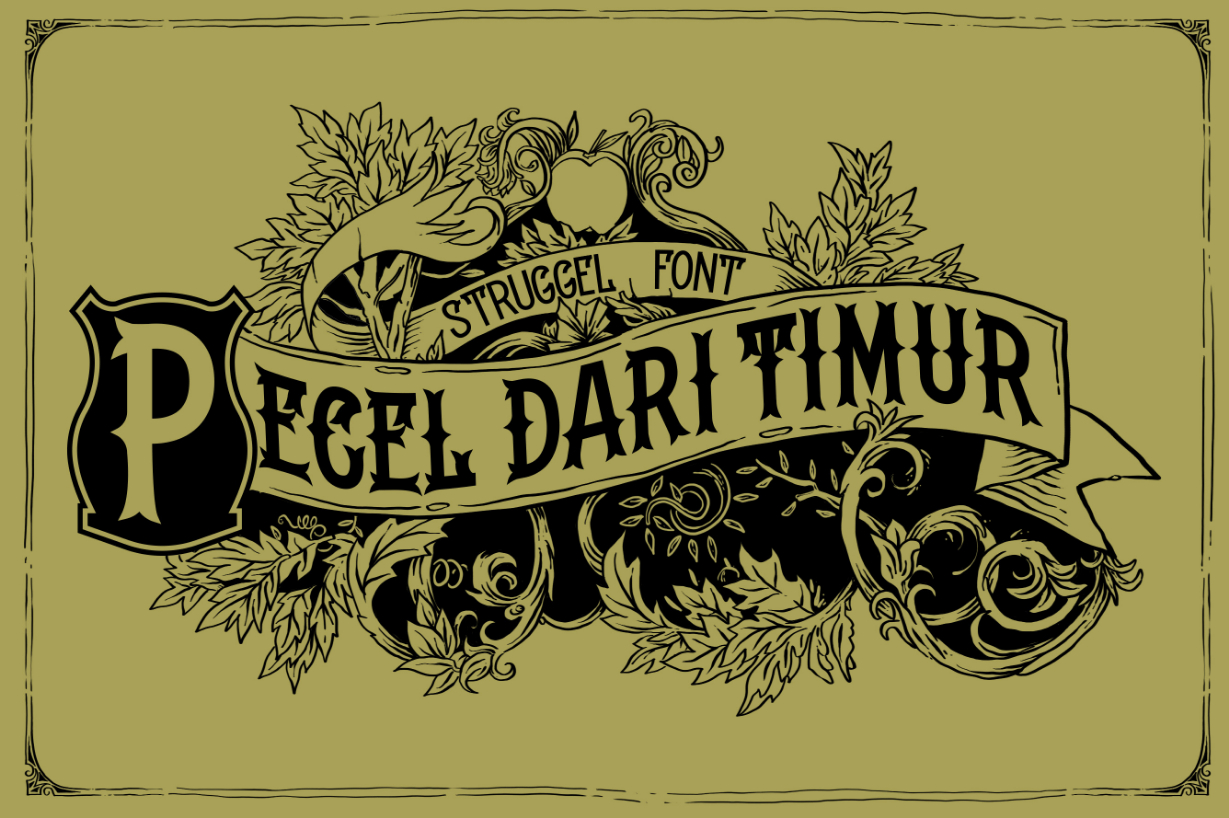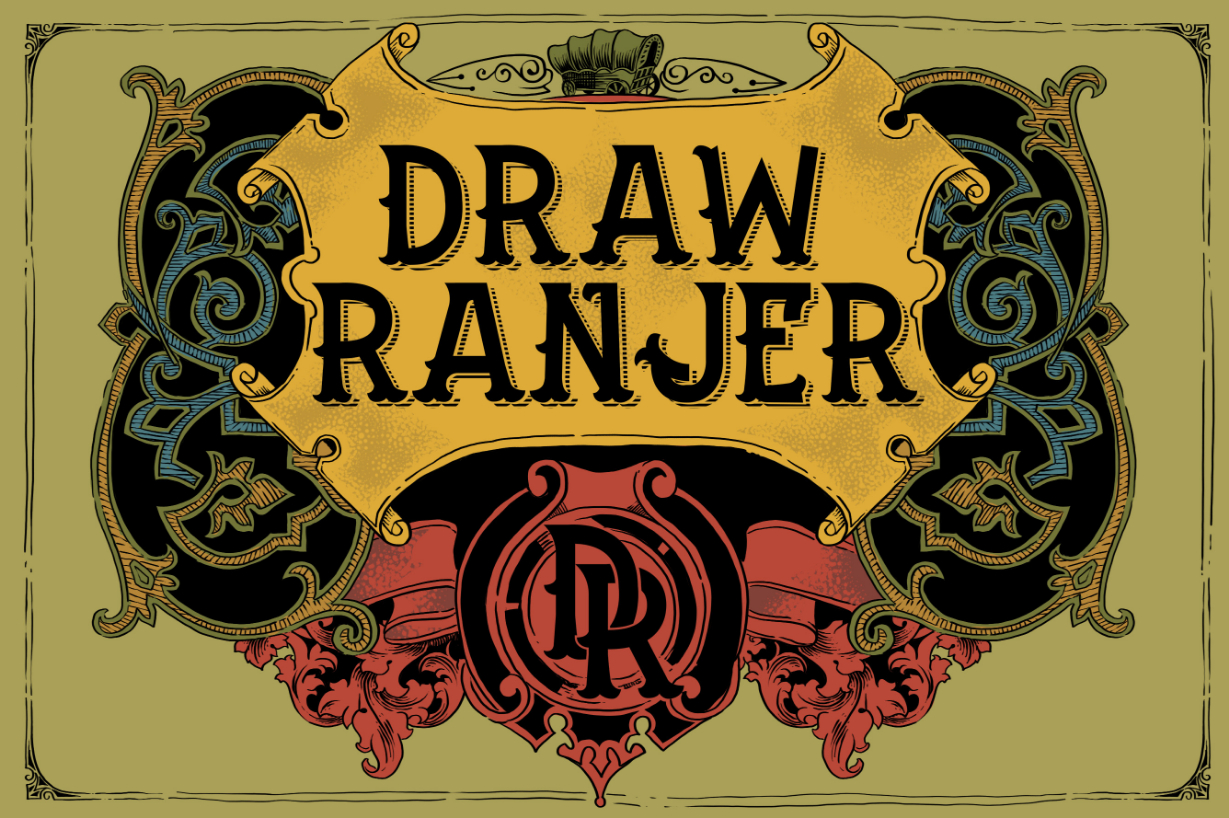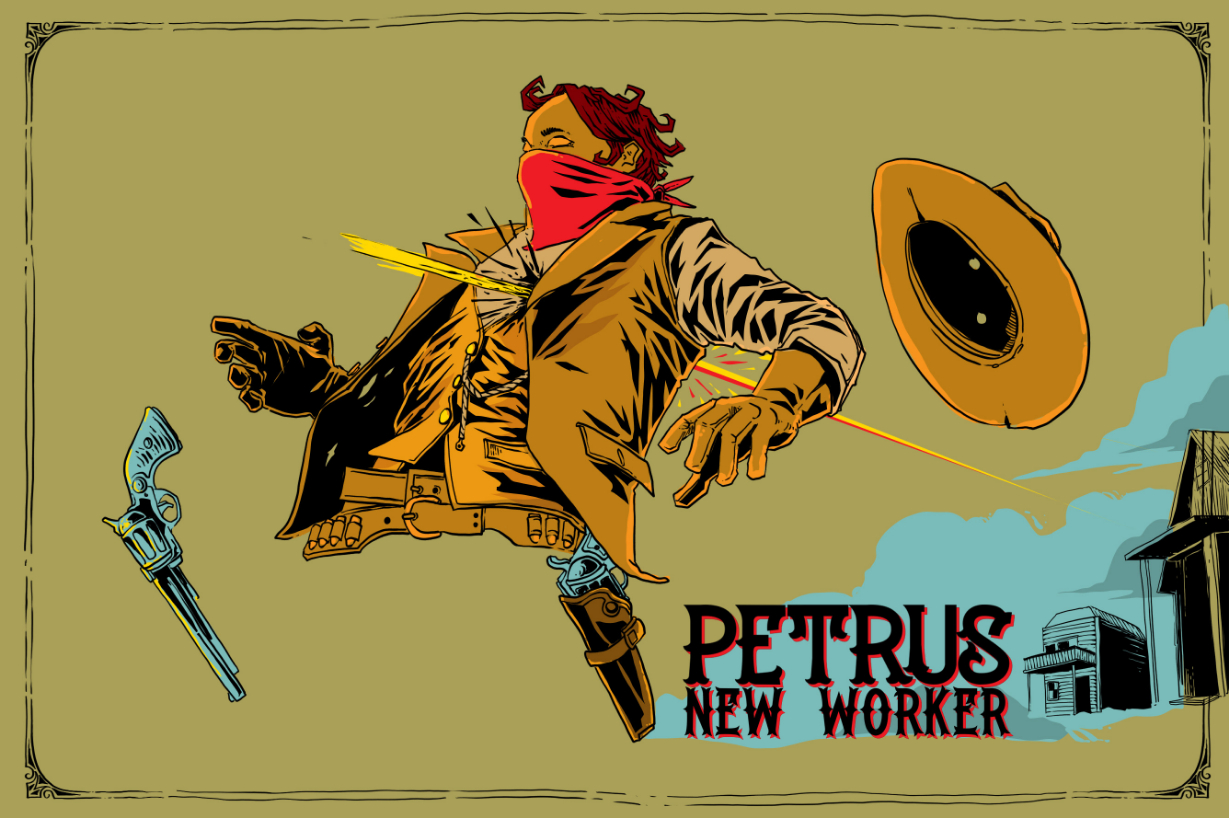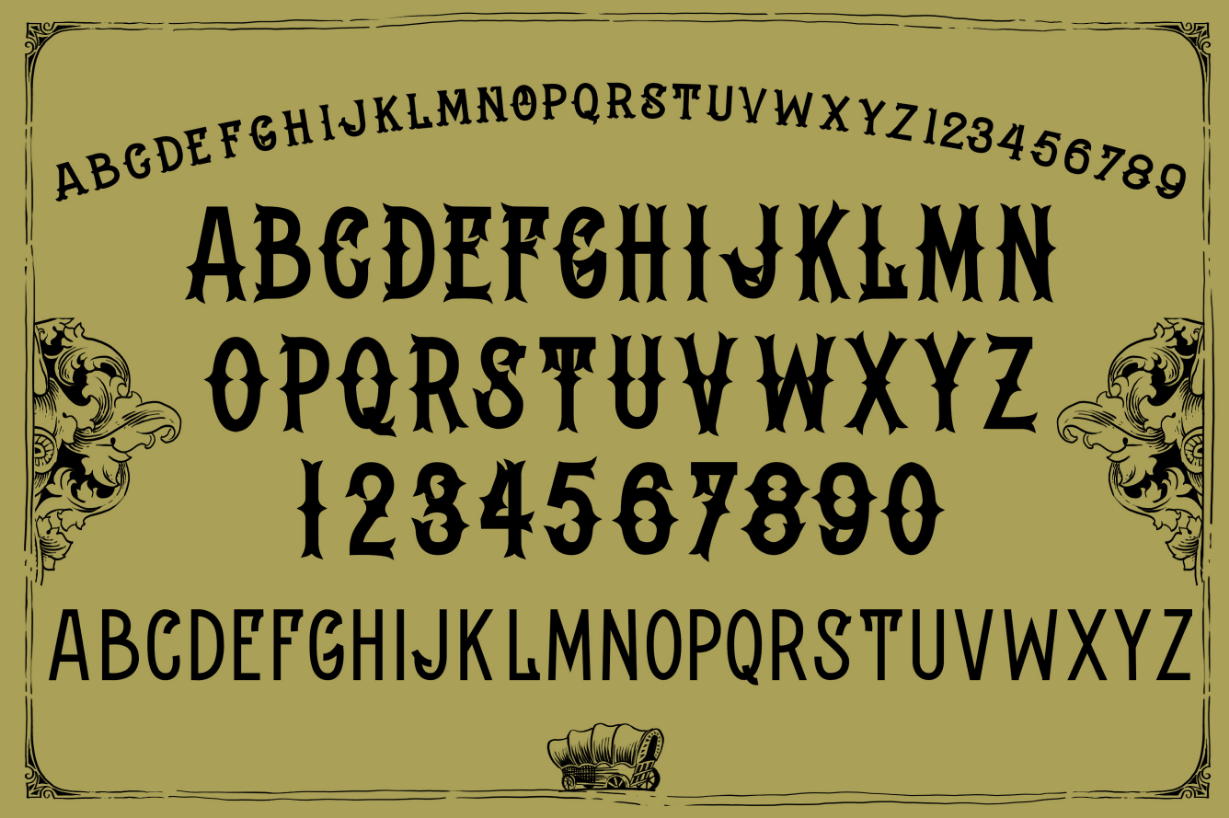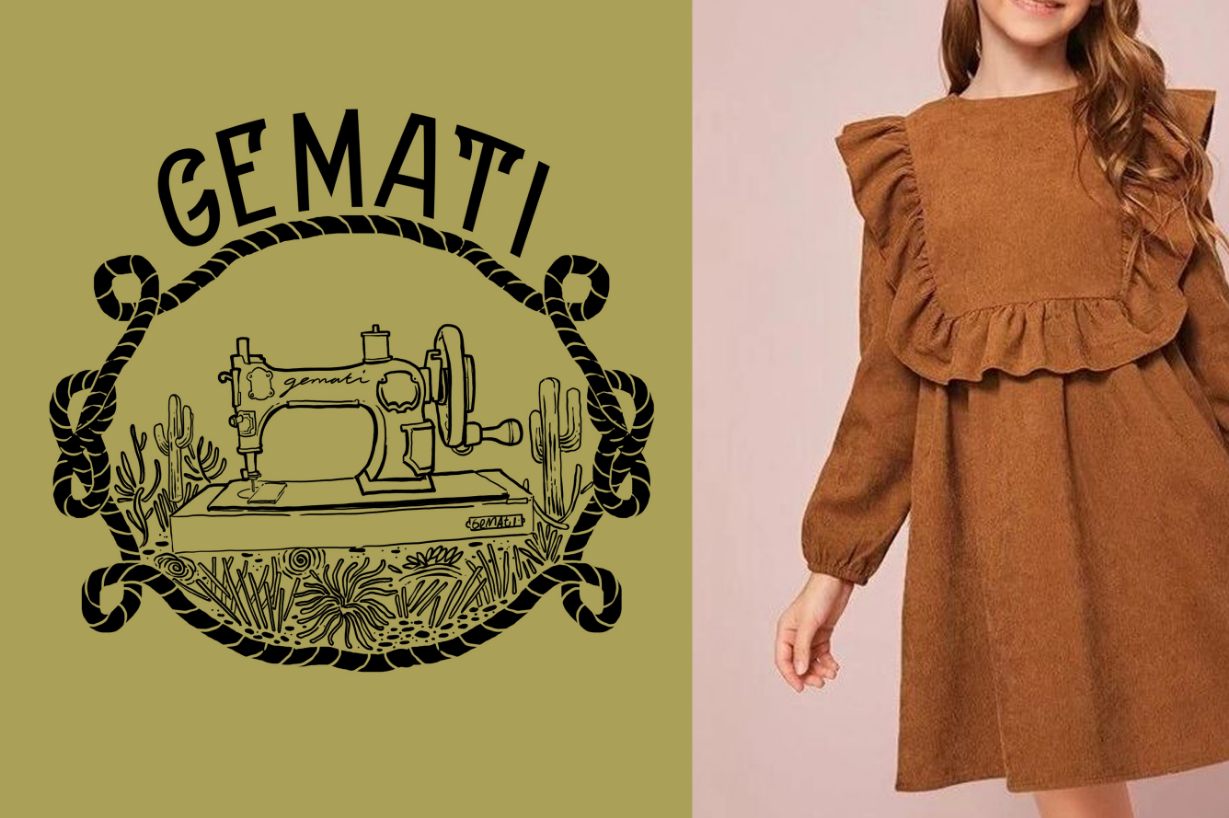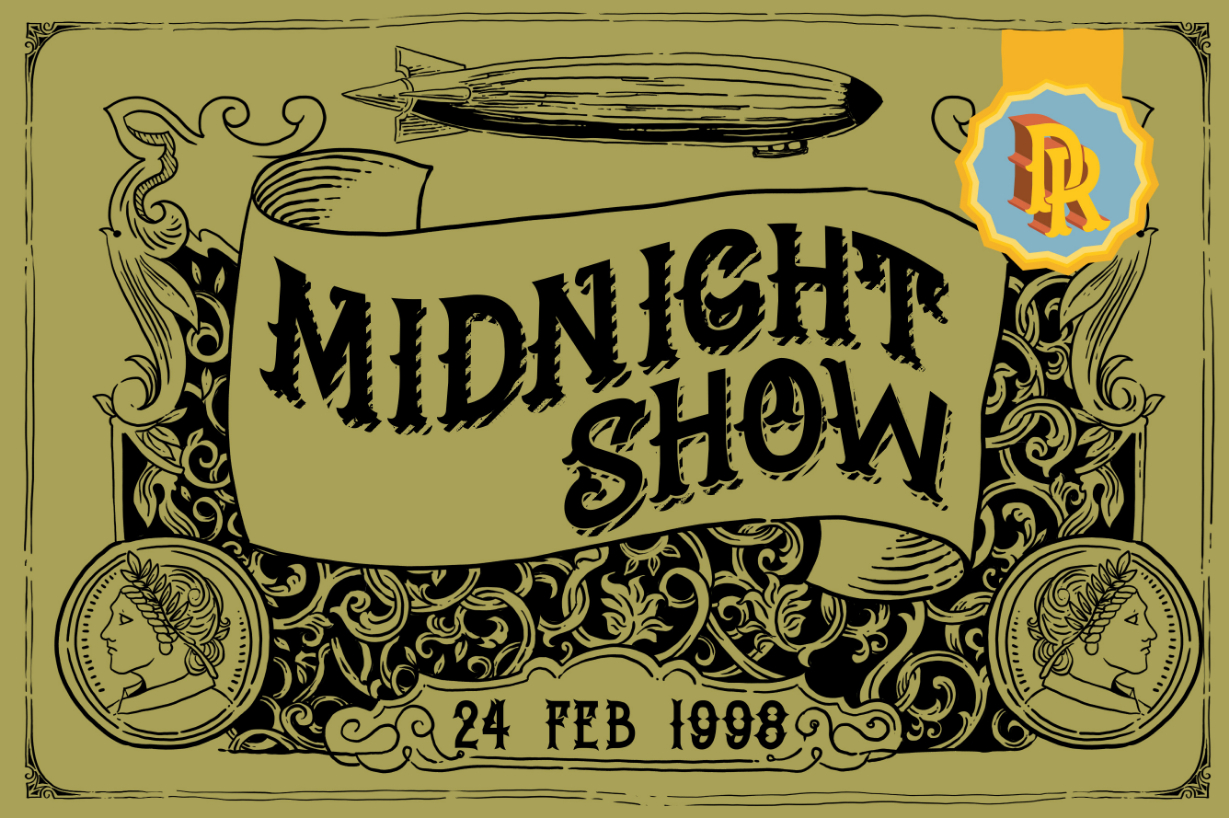
Pecel Dari Timur Font
About Pecel Dari Timur Font
Pecel Dari Timur is a bold blackletter font with an authentic western theme. It is ideal for any design that requires a firm touch. Add it confidently to your projects, and you will love the results.